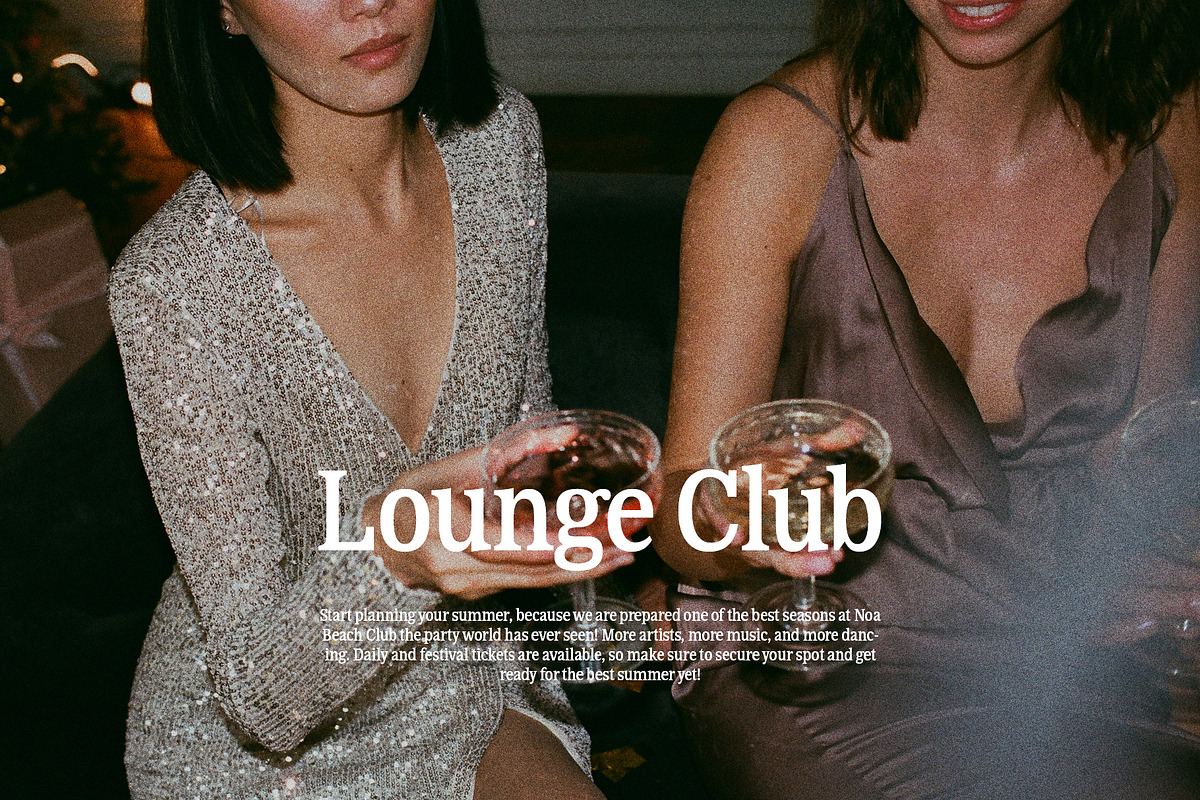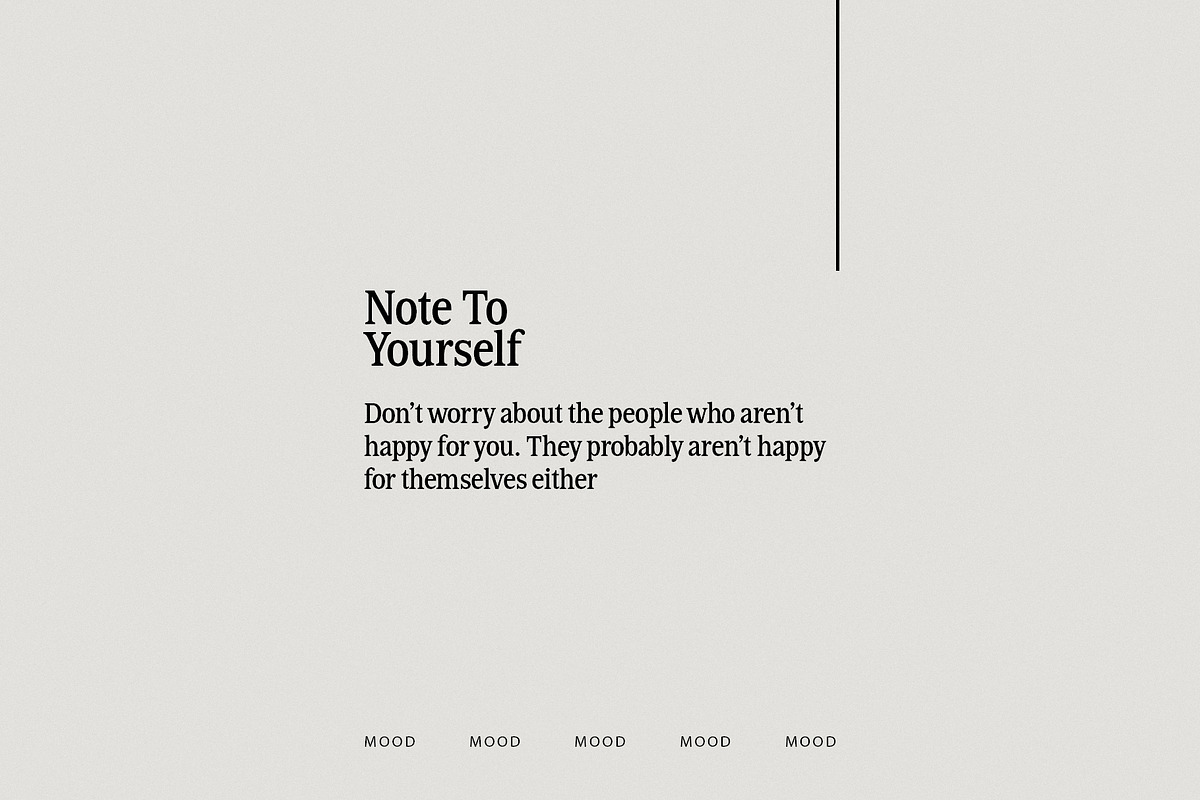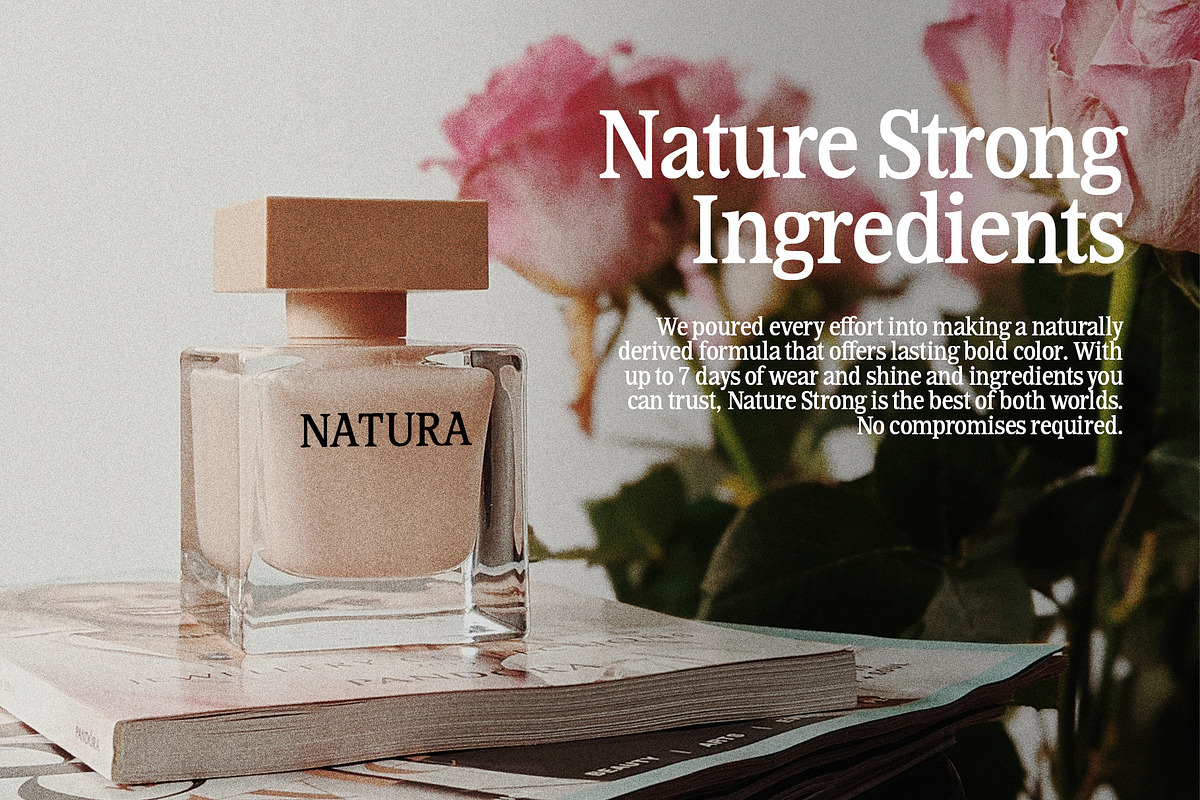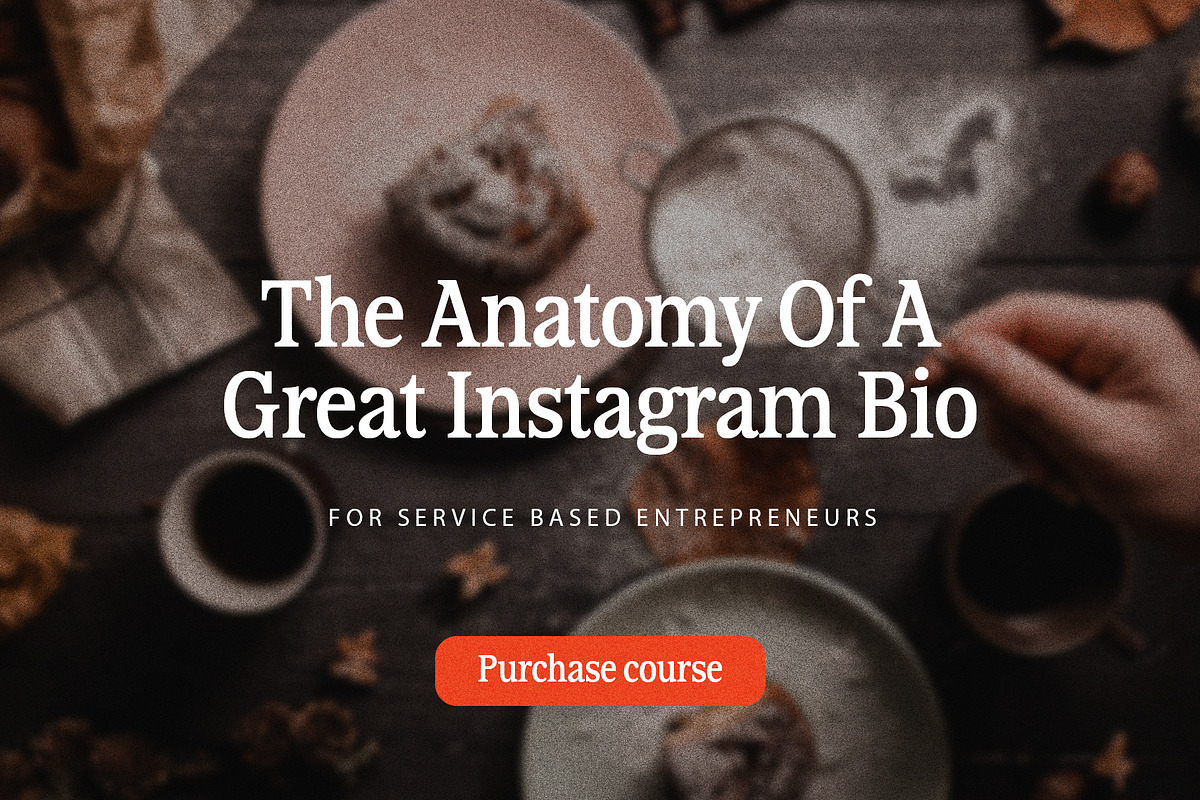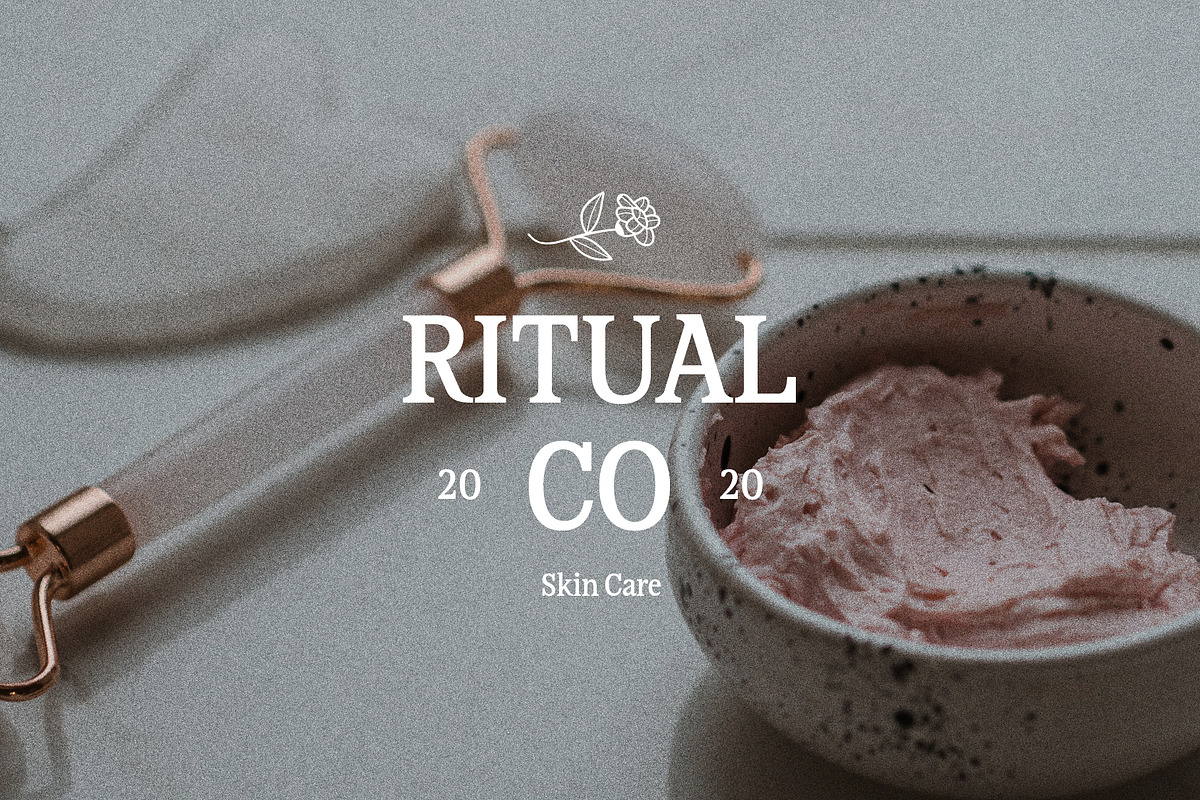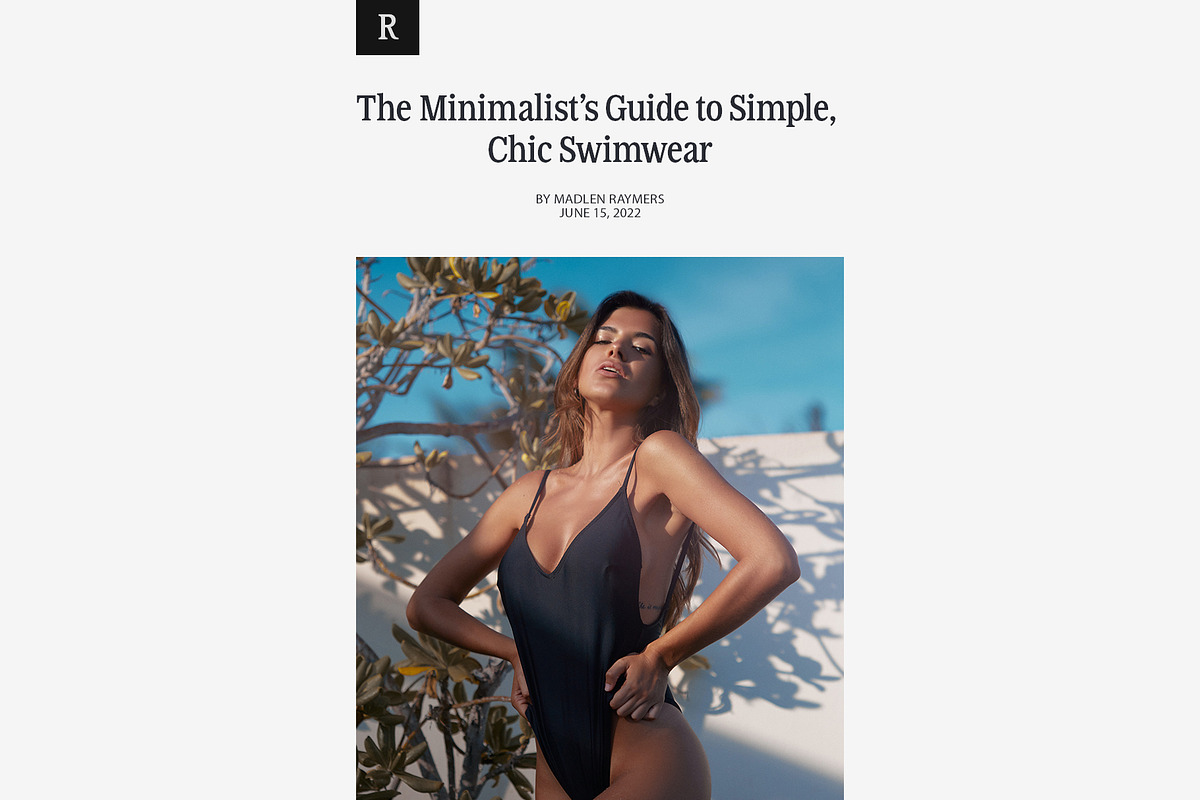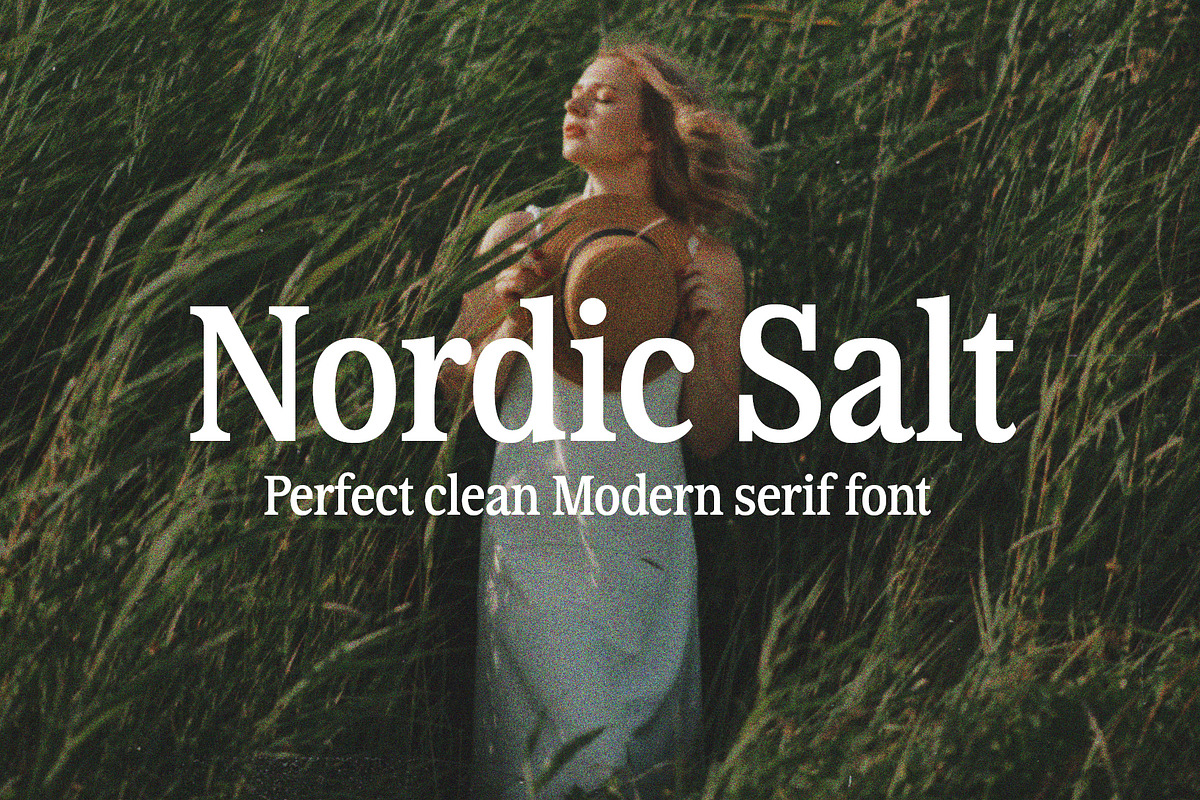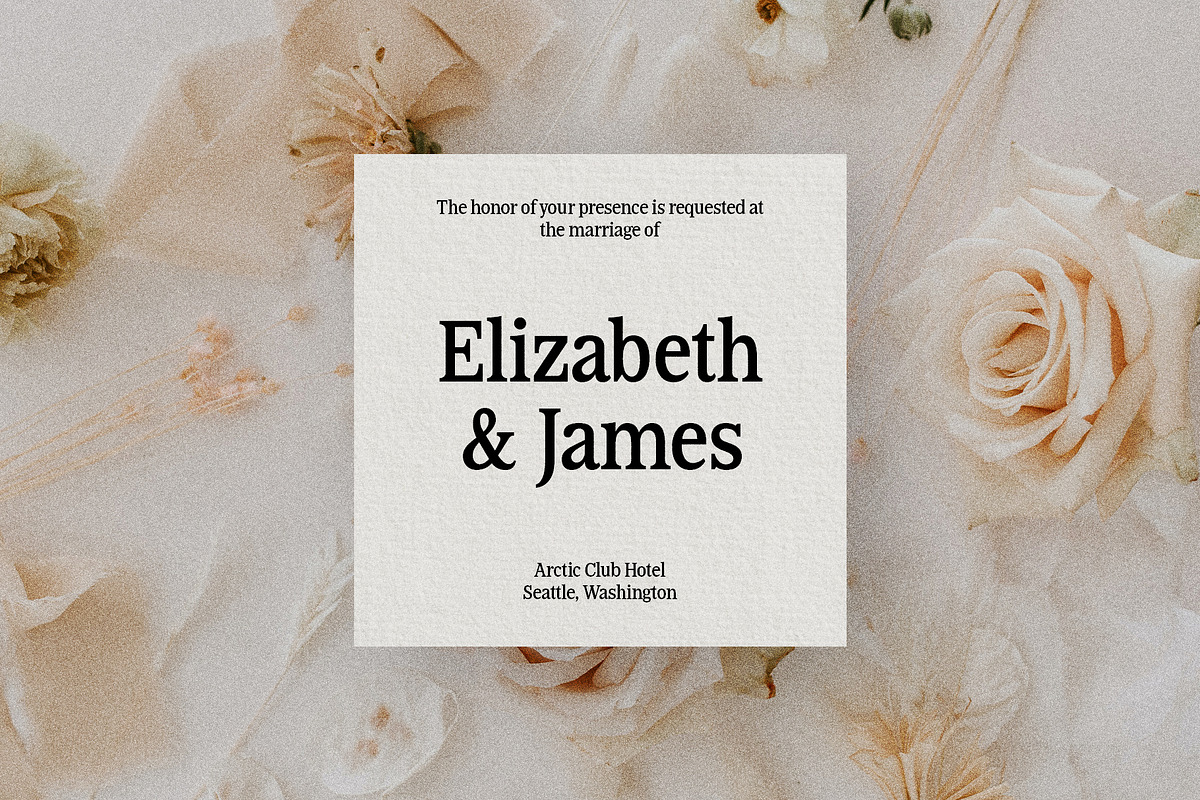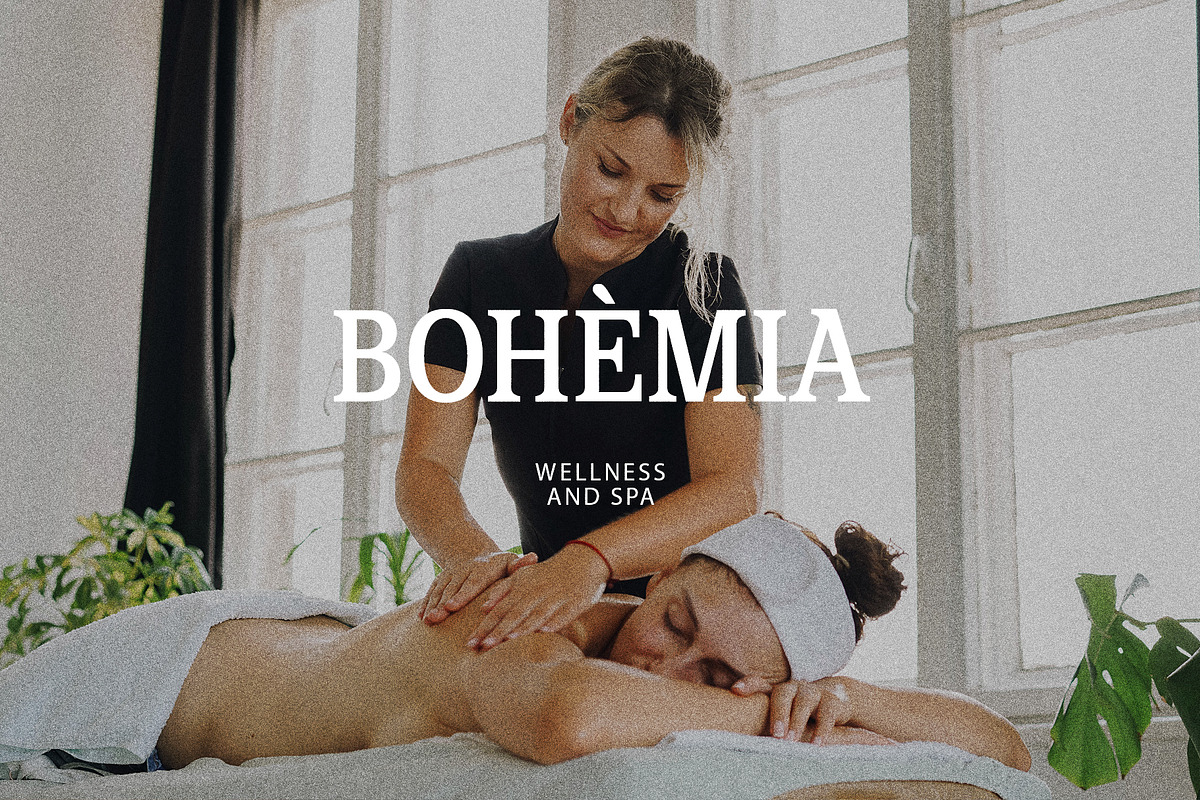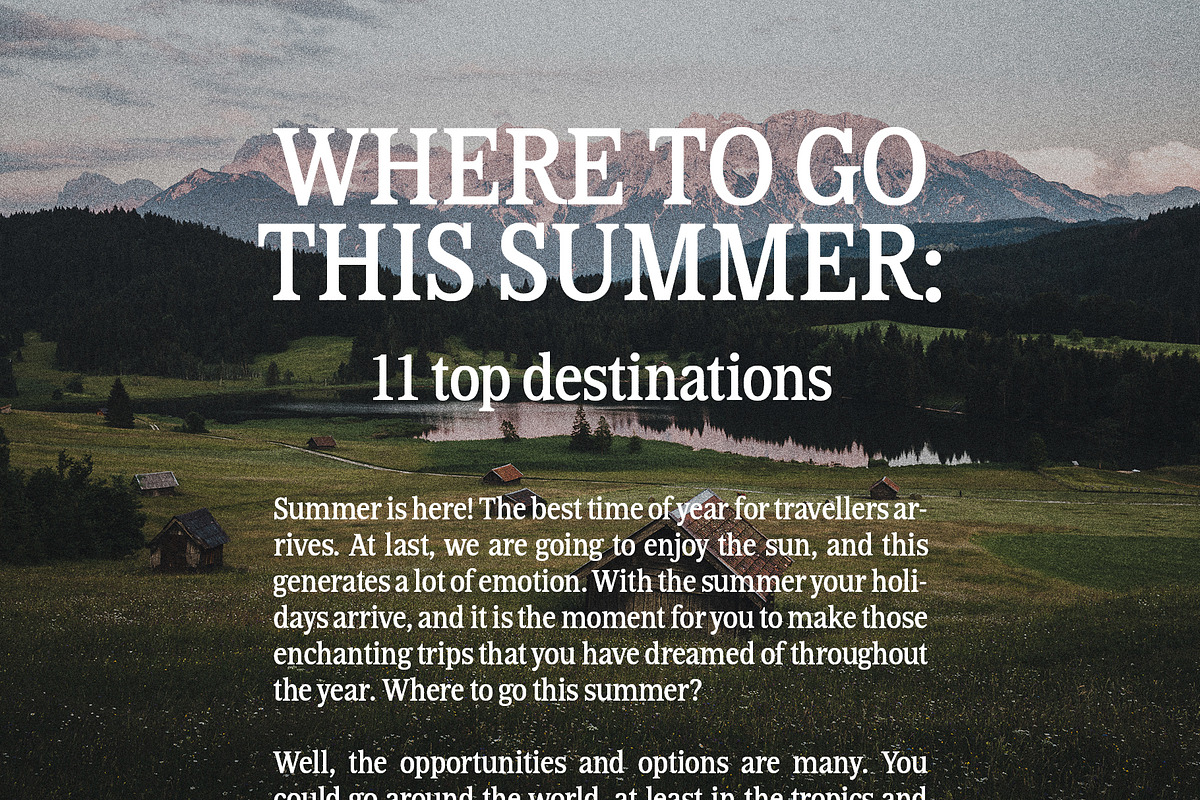
Nordic Salt / Vintage Modern Serif
Nordic Salt - a perfect clean modern serif. This is a perfect for any project
Nordic Salt Font Features:
- Full Set of standard alphabet and punctuation
- Language support: All European languages
- Multilingual Characters AÁĂÂÄÀĀĄÅÃÆBCĆČÇĊDÐĎĐEÉĚÊËĖÈĒĘẼFGĞĢĠḠHĦIIJÍÎÏİÌĪĮĨJKĶLĹĽĻŁMNŃŇŅÑ OÓÔÖÒŐŌØÕŒPÞQRŔŘŖSŚŠŞȘẞTŤŢȚUÚÛÜÙŰŪŲŮŨVWẂŴẄẀXYÝŶŸỲỸZŹŽŻ aáăâäàāąåãæbcćčçċdðďđeéěêëėèēęẽfgğģġḡhħiıíîïìijīįĩjȷkķlĺľļłmnńňņñoóôöòőōøõœpþ qrŕřŗsśšşșßtťţțuúûüùűūųůũvwẃŵẅẁxyýŷÿỳỹzźžż